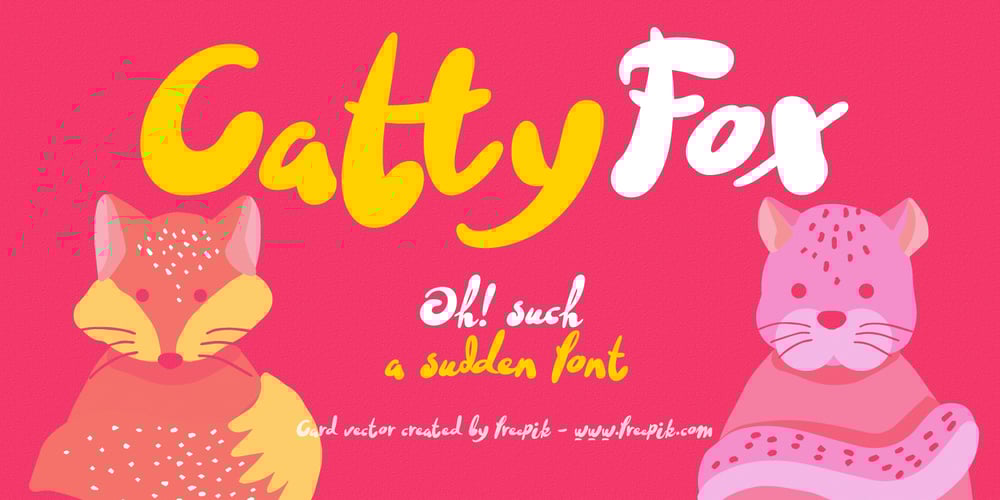
Cattyfox Font Family was designed by Alexey Popov and published by Popskraft. Cattyfox contains 2 styles and family package options. Everyone loves black, strict stylish and elegant shapes. We strive to be perfect. Right? But … don’t you think we have lost something? Maybe childish spontaneity? The Cattyfox font will take you back to those wonderful times when there was no need to be serious, when the whole world was not so serious. If you want to have some uncompromising fun, hover above the crowd to show everyone how free you are, just create something in Cattyfox font and you will understand what true freedom is.